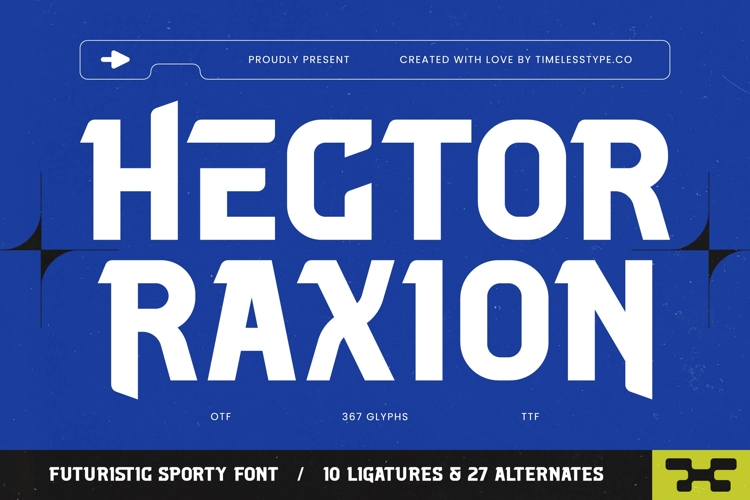
Hector Raxion - Futuristic Sporty Font
Hector Raxion - Futuristic Sporty Font redefines modern typography with its unapologetic presence and dynamic aesthetic. This typeface is a powerful statement, engineered for projects demanding bold impact and a contemporary edge. Its robust structure combines sharp angles and geometric precision with subtle, energetic curves, making it instantly recognizable. This font powerfully communicates strength, speed, and innovation.
Beyond its striking appearance, Hector Raxion - Futuristic Sporty Font offers unparalleled design versatility. Featuring 10 thoughtfully crafted ligatures and 27 unique alternates, it empowers designers to unlock layers of creative expression and achieve truly bespoke branding. These stylistic features allow for dynamic text compositions, transforming ordinary layouts into extraordinary visual experiences that convey modernity and sophistication.
Crafted for maximum impact across diverse media, Hector Raxion - Futuristic Sporty Font is ideally suited for sports branding, automotive advertising, tech identities, gaming interfaces, and cutting-edge editorial design. It excels in dynamic headlines, eye-catching packaging, and memorable logo design. With its extensive multilingual support, Hector Raxion - Futuristic Sporty Font adapts seamlessly across global markets, making it incredibly versatile for international projects.